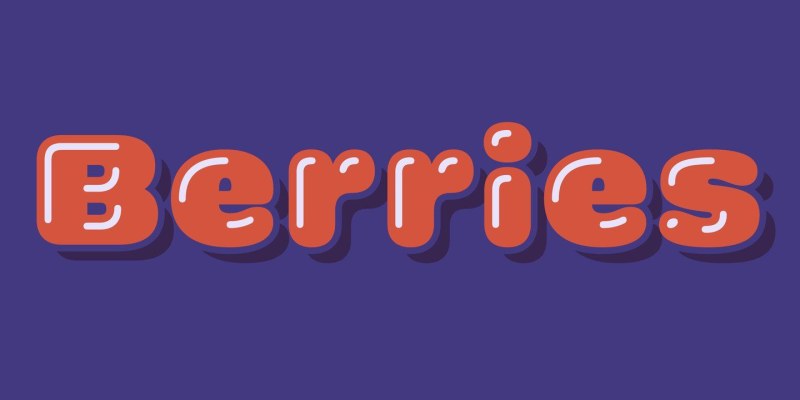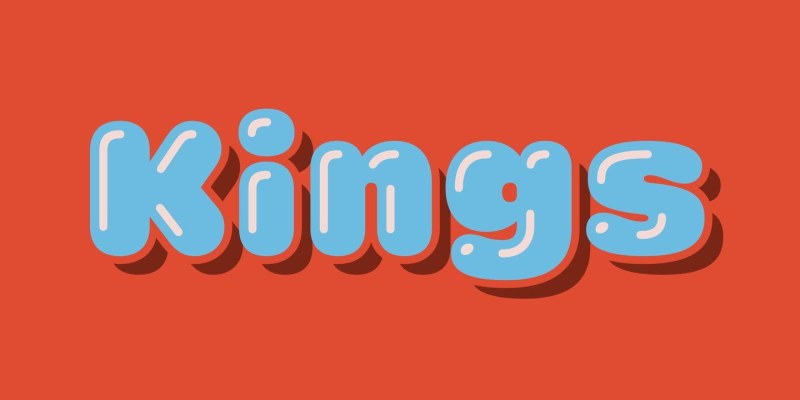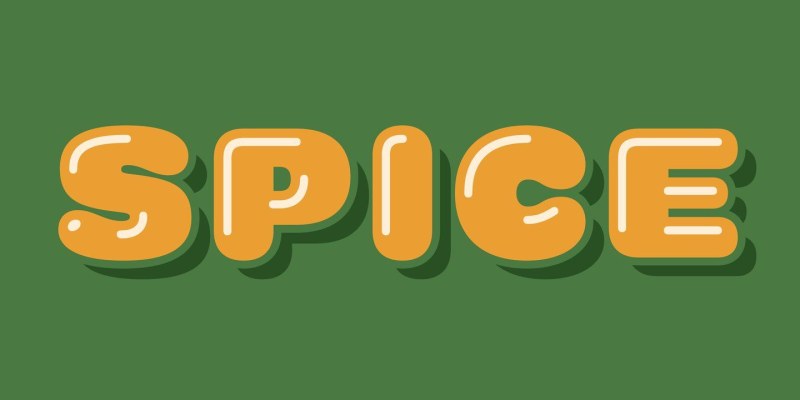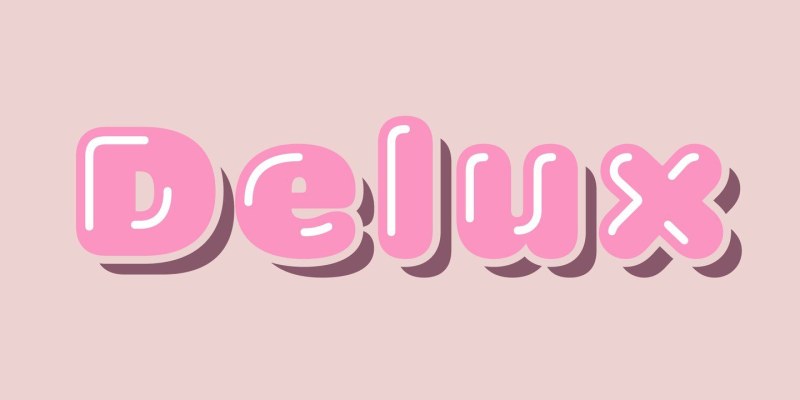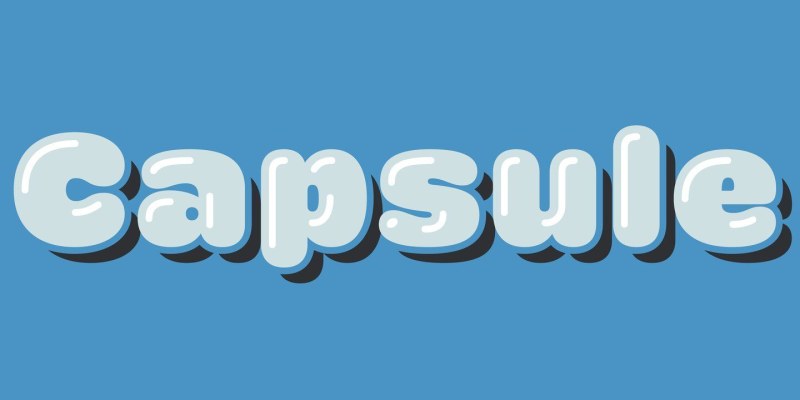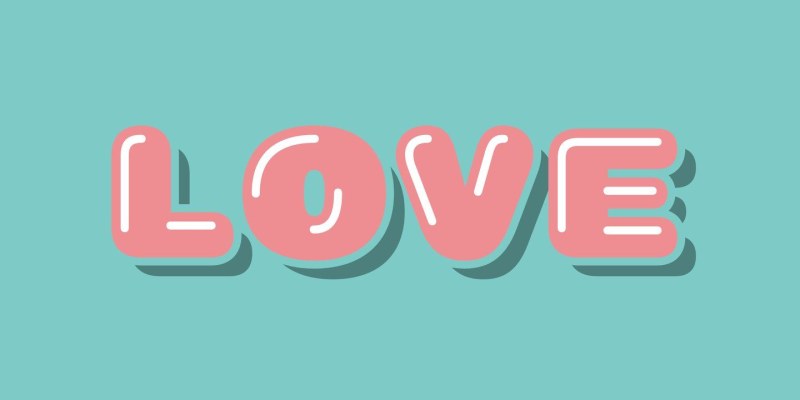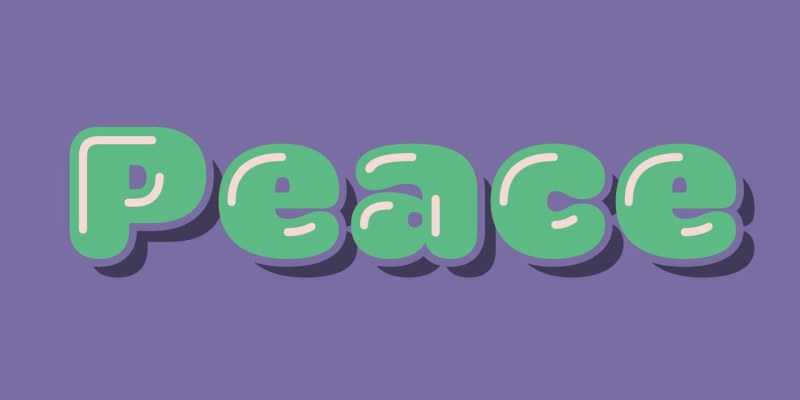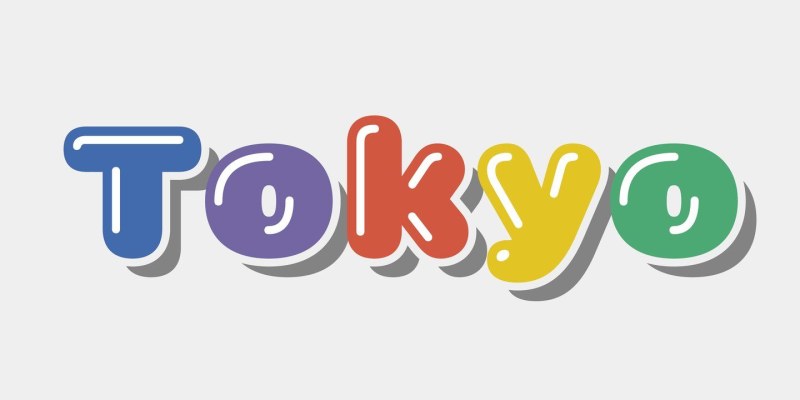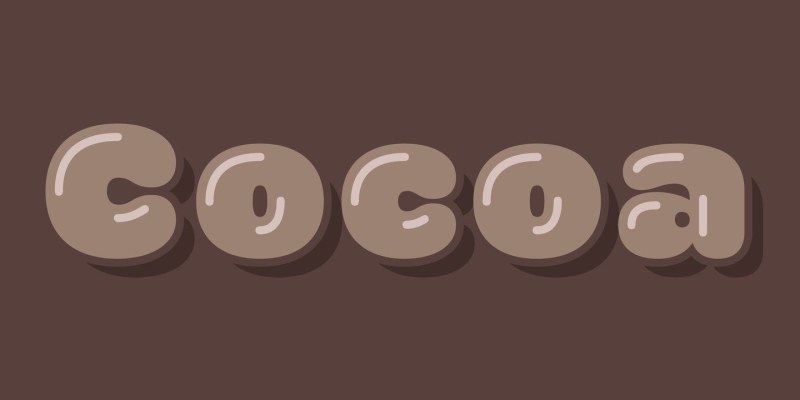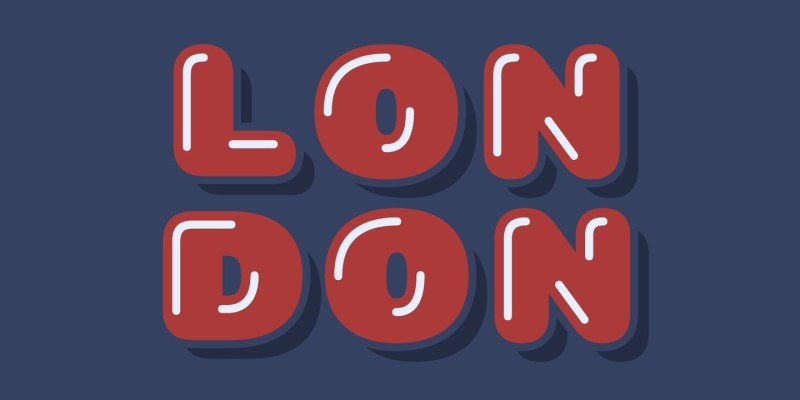
Poipoi Font Family
Extraordinary impact and visual conspicuousness. Poipoi is a super 3D sans family for posters, logos and all display. The basic idea is not a brand new. The Stacking type system has been used since before wood type age. As you imagined, colored wood type(woodcut), many other engravings and contemporary printer machine print many colors separately with different printing plates for each color.
Poipoi uses the same system for 3d effect.
Poipoi “Standard” style is the base of this font family.
You can add effects by stacking Highlight and shadow layers.
Stacked layers in different color make the text in 3D.
Where Poipoi Font Family works best
Poipoi Font Family is built for size: event posters, hero headlines and billboard-style layouts.
High contrast display type like Poipoi Font Family reads instantly in thumbnails and motion graphics.
What is Poipoi Font Family good for?